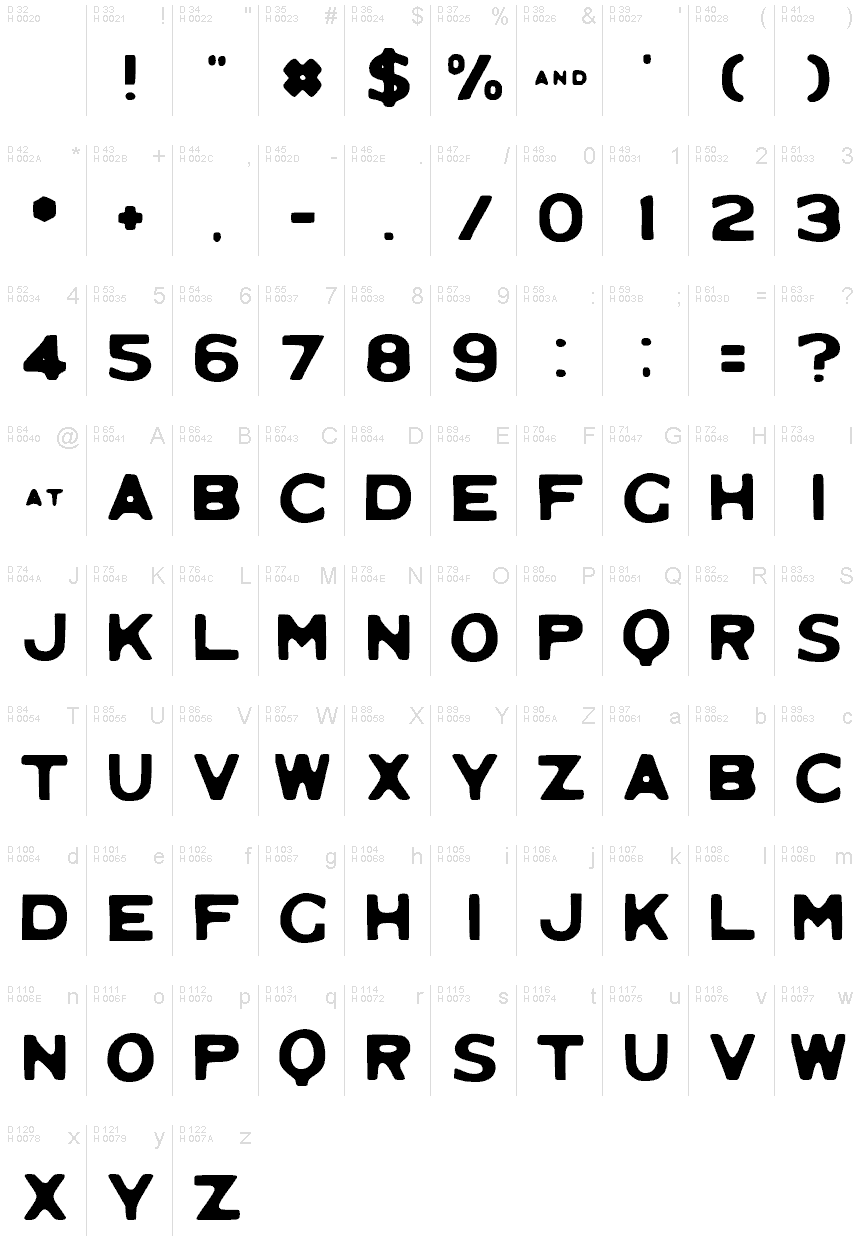
Donrich V01 Sugihpribad Regular
Donrich Sugihpribad font by Sugihpribadi is an expanded display font with an eroded style. Strong, modern, and powerful, it mixes impressive characters with sharp edges and smooth curves for a memorable design. The free artistic font is perfectly balanced, giving you access to texts with a strong presence that keeps viewers interested as they read.
Create striking stories and posts for Instagram or use Donrich Sugihpribad in headlines and logotypes that express both simplicity and creativity. Labels need only a few words to be efficient so instantly highlight food products or cosmetics with an eye-catching title.